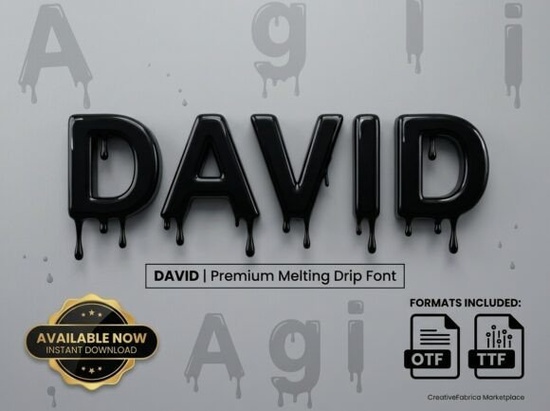
When it comes to adding a unique and eye-catching touch to your designs, the David Font stands out as a fantastic choice. This premium melting drip font brings a modern "street-luxe" energy to any project, making it perfect for streetwear labels, urban music festival headers, and creative apparel prints.
What Makes David Font Stand Out?
The David Font is designed with a high-gloss, 3D liquid texture that gives it a realistic gravity-driven drip effect. This distinctive feature makes it look like the letters are melting, whether you interpret it as ink, chrome, or even tar. The heavy, rounded anatomy and glossy highlights make it pop off the screen, adding a contemporary flair to your designs.
Best Uses for David Font
Given its unique style, the David Font is best suited for specific design projects. Here are some of the top uses:
- Streetwear Labels: Add a bold and edgy feel to your clothing line with this dripping font.
- Urban Music Festival Headers: Create vibrant and energetic graphics that capture the essence of urban music culture.
- Energetic Social Media Graphics: Make your social media posts stand out with dynamic and attention-grabbing visuals.
- Creative Apparel Prints: Design t-shirts, hoodies, and other apparel with a modern, street-style vibe.
How Does David Font Compare to Other Decorative Fonts?
While there are many decorative fonts available, the David Font has a few standout features that set it apart. For instance, the Spirit Moon Font offers a more mystical and ethereal feel, which can be great for fantasy or spiritual designs. On the other hand, the Dove Wedding Monogram Font is elegant and refined, perfect for wedding invitations and formal events.
The Blaze Font is another option that provides a fiery and dynamic look, ideal for sports or action-themed designs. Meanwhile, the Fiesta Circuit Font has a fun and festive vibe, making it suitable for party invitations and celebratory graphics.
In comparison, the David Font's dripping, melting effect gives it a distinct, modern, and edgy appeal, making it a go-to choice for designers looking to add a unique and contemporary touch to their work.
Design Tips for Using David Font Effectively
To get the most out of the David Font, here are some practical tips:
- Balance is Key: Use the David Font sparingly to avoid overwhelming your design. It works best as a focal point or accent.
- Color Choices: Experiment with different colors to enhance the dripping effect. Darker, metallic shades can give a more dramatic and luxurious feel.
- Complementary Fonts: Pair the David Font with simpler, more legible fonts for a balanced and professional look. This can help in creating a cohesive design without losing the impact of the David Font.
- Context Matters: Consider the context of your design. The David Font is perfect for urban, street, and modern themes, but may not be suitable for more traditional or formal projects.
Where to Find and Use David Font
Final Thoughts
The David Font is a versatile and visually striking option for designers, crafters, and print-on-demand sellers who want to add a modern, edgy touch to their projects. Whether you're designing streetwear, urban music festival graphics, or creative apparel, this font can help you achieve a unique and contemporary look. Just remember to use it thoughtfully and creatively to make the most of its distinctive features.